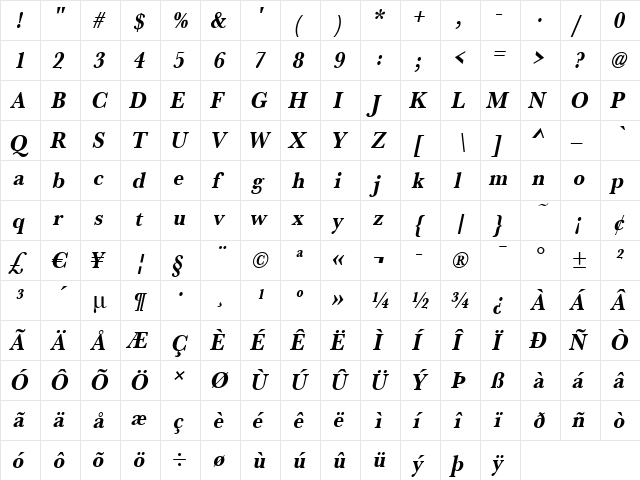
RoxanneBeckerNarrow Bold Italic Font Preview
Design Context for RoxanneBeckerNarrow Typeface
RoxanneBeckerNarrow is a composed and adaptable typeface that performs quietly and consistently across a wide range of design contexts. The slanted form adds forward momentum and visual energy. Its bold stroke weight gives it real presence on the page. Its narrow stance lets it pack a punch even in space-constrained designs.